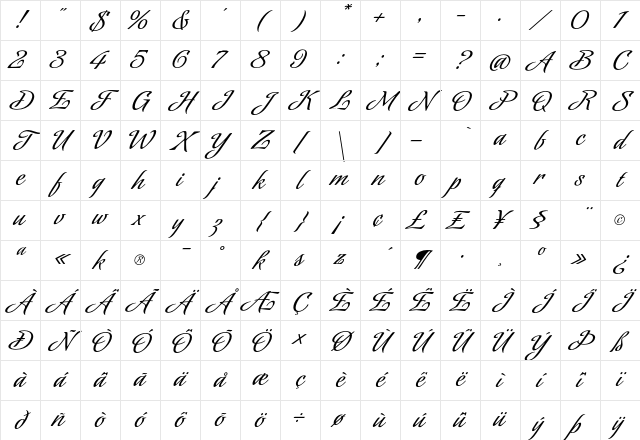
Complete Sinfonieta Regular glyph index. Displaying only characters natively supported by Sinfonieta Regular font.
Sinfonieta is a composed and adaptable typeface that performs quietly and consistently across a wide range of design contexts.
Who designed the Sinfonieta Regular font?
This font was published by Alejandro Paul and Angel Koziupa. Check the technical specs section for copyright and designer details.